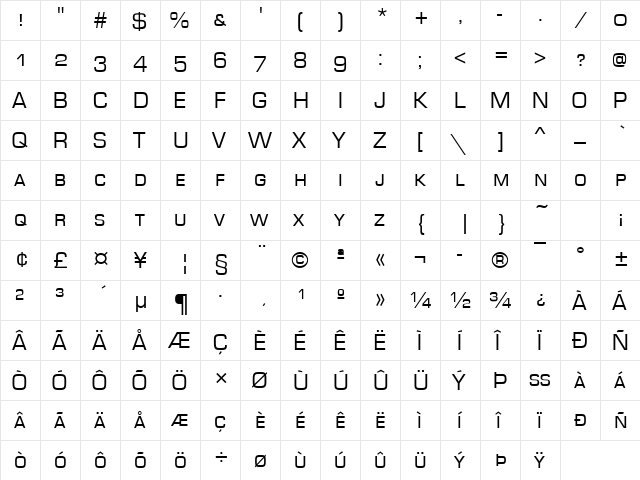
EurostileSCT Regular
Design Context for EurostileSCT Typeface
EurostileSCT offers clean, dependable letterforms without strong stylistic allegiance, making it a practical choice for designers who need flexibility.